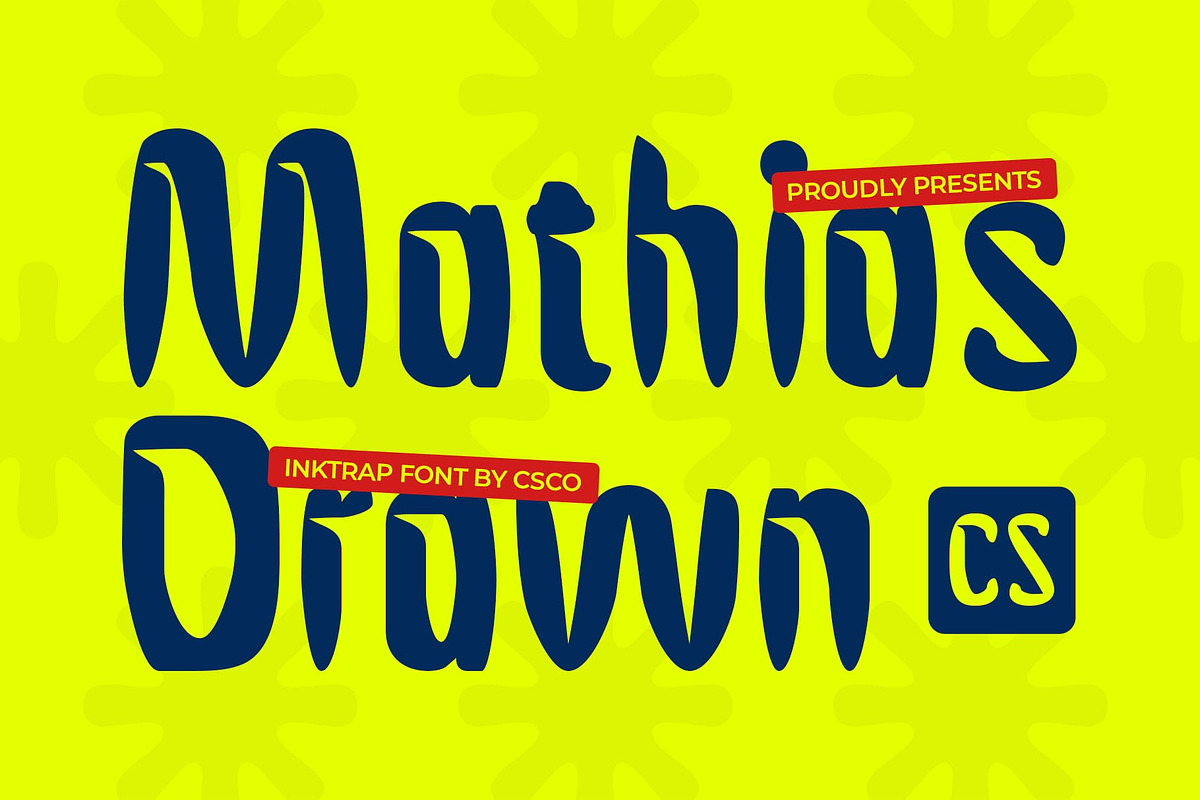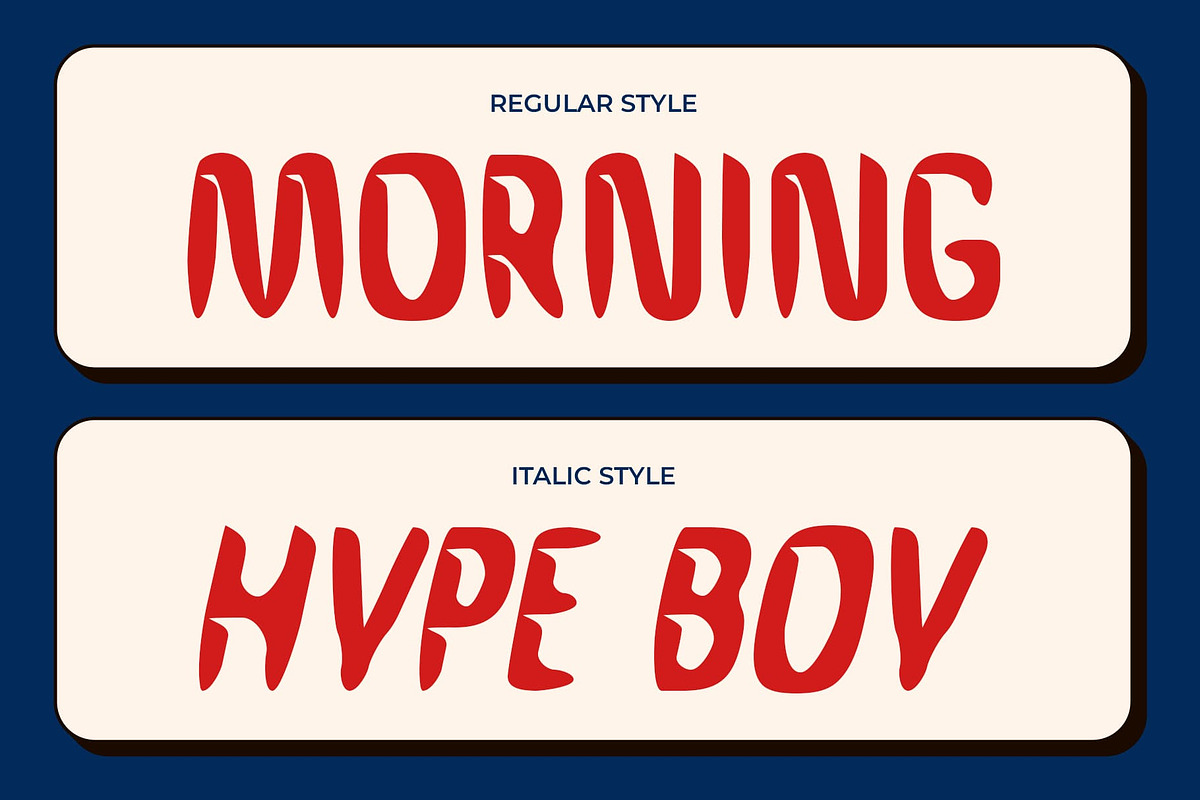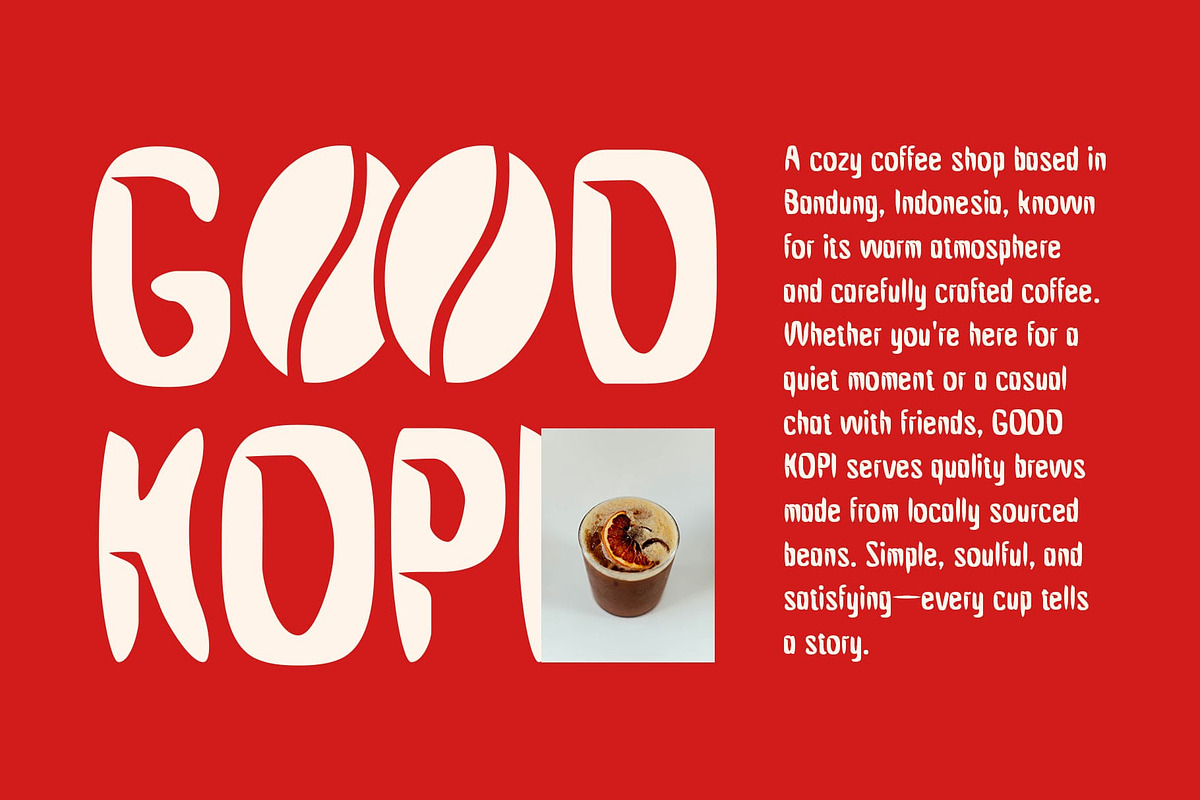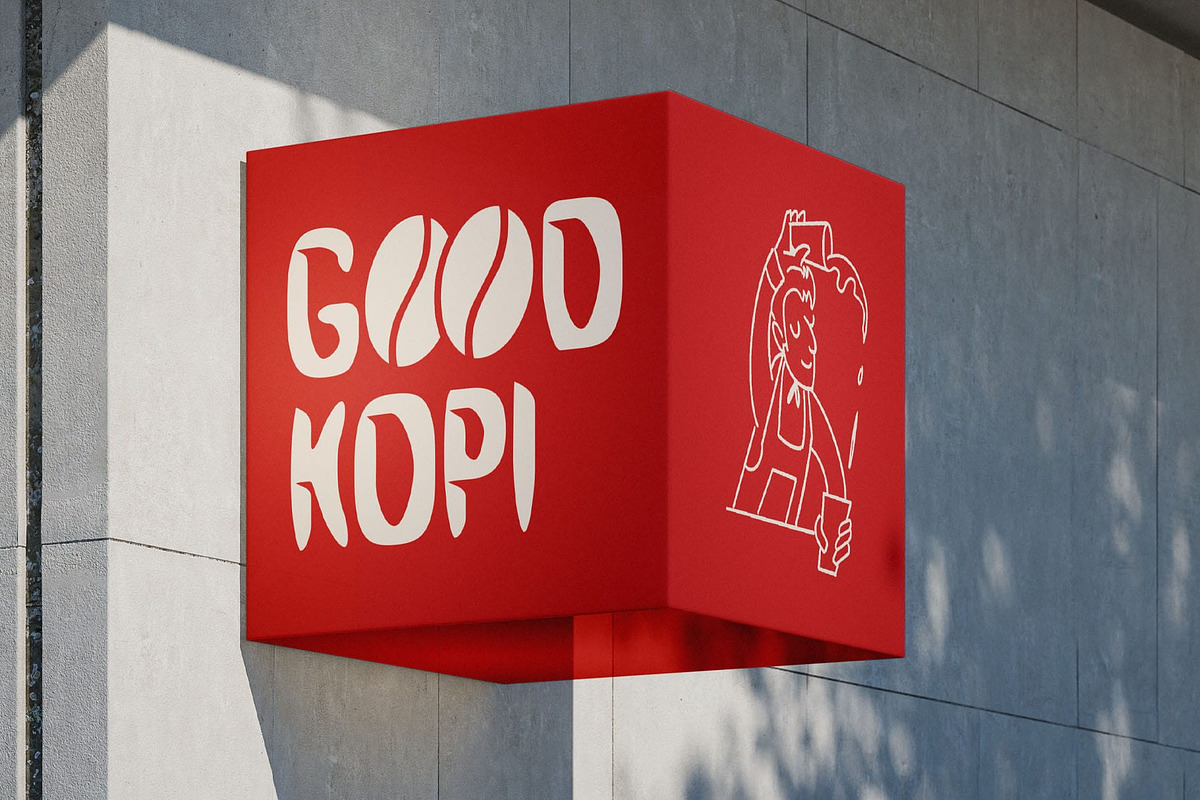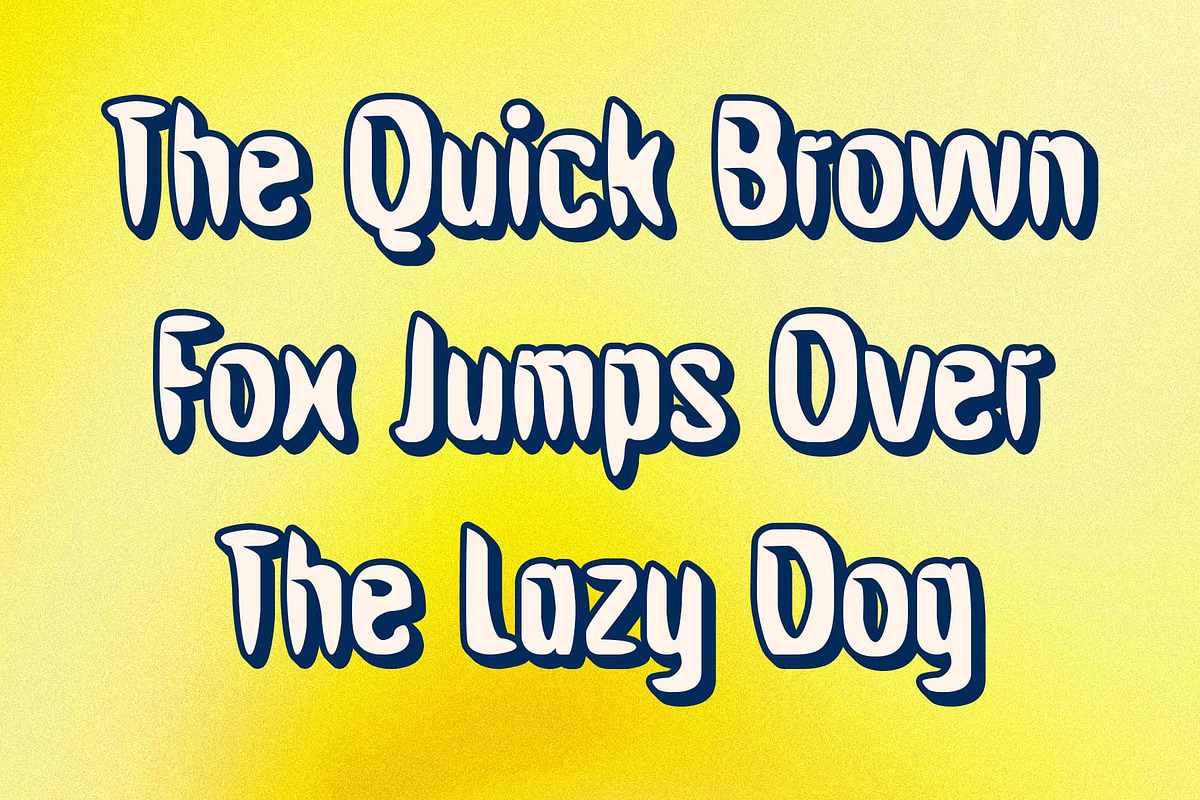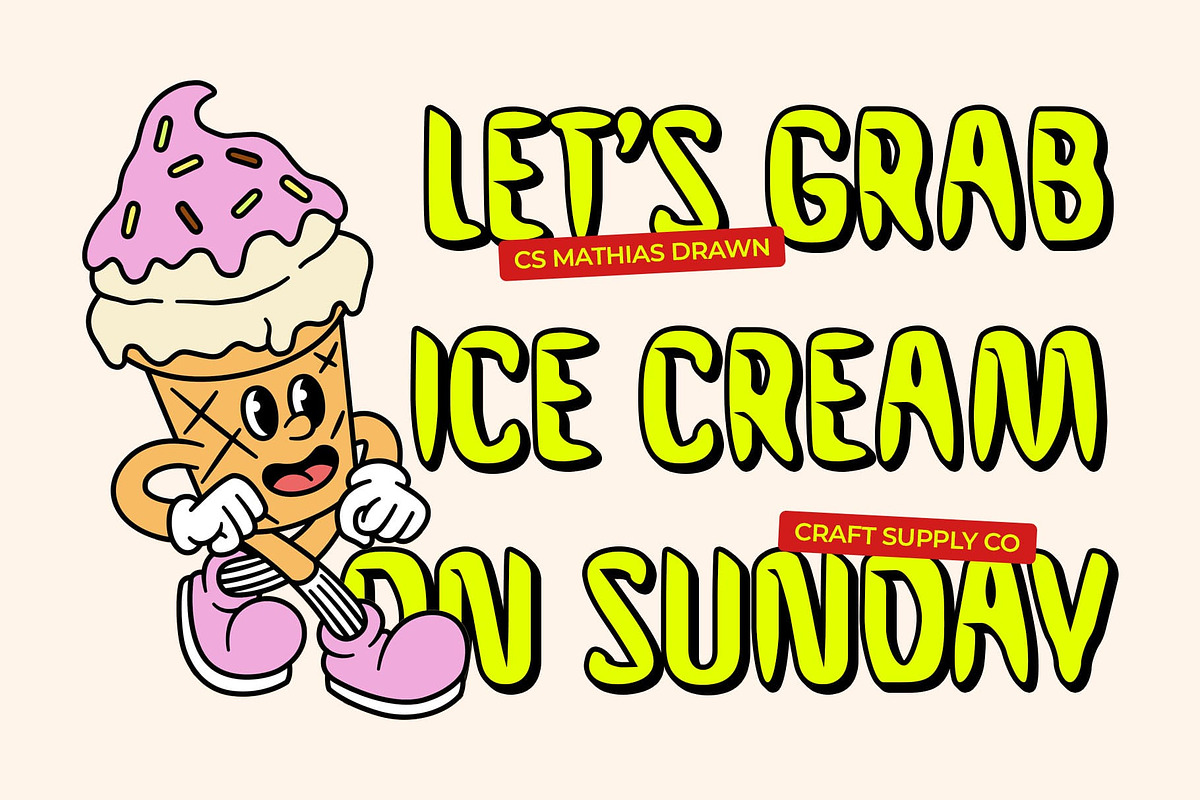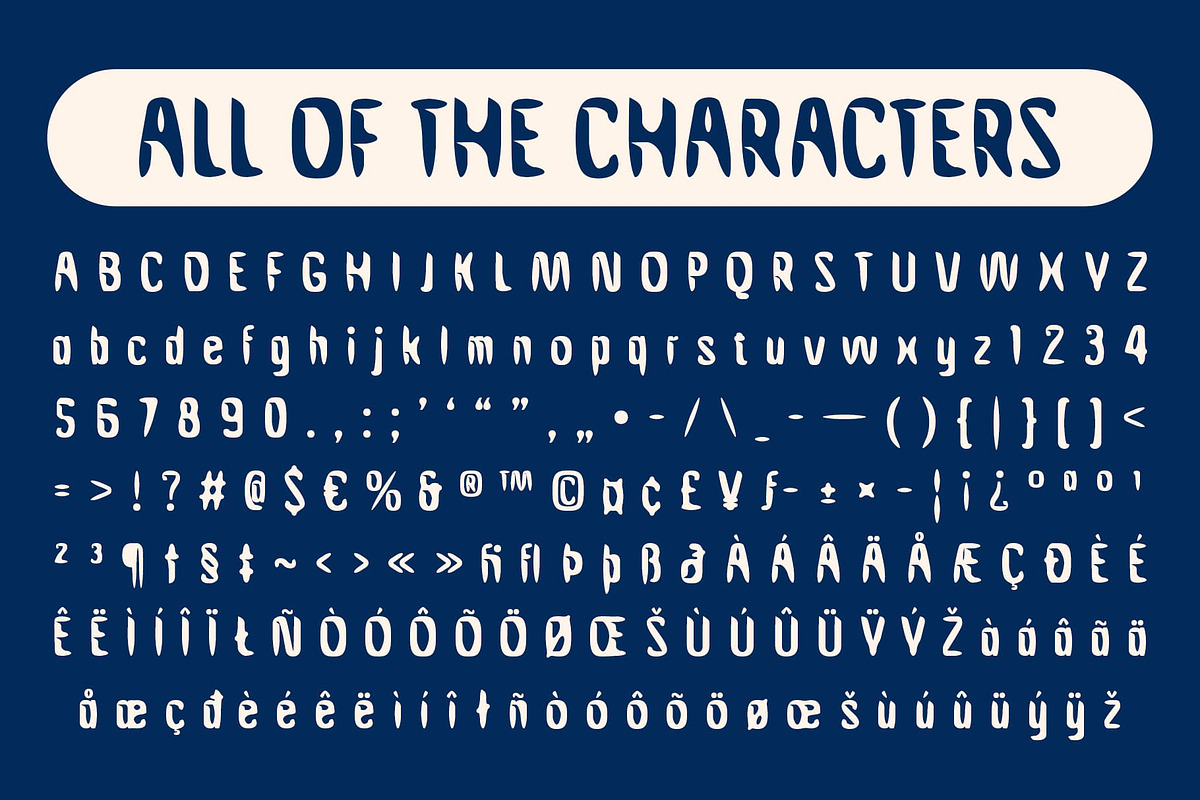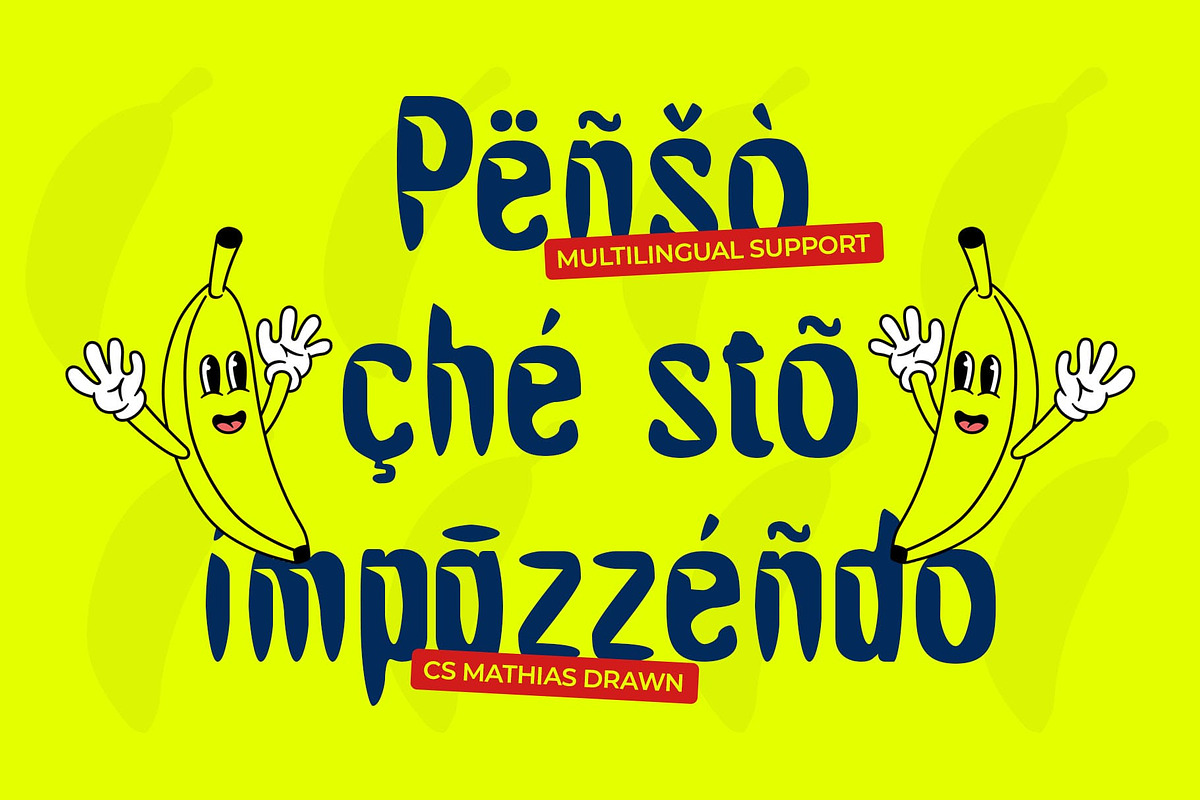
CS Mathias Drawn
CS Mathias Drawn – Contemporary Sans Serif with Inktrap Flair and Artistic Expression
Sharp Functionality Meets Organic Creativity CS Mathias Drawn is a modern sans serif font that combines technical precision with a hand-drawn spirit. Its defining feature lies in its distinctive inktrap details, which not only enhance legibility but also give the letterforms a bold, structured presence. These clean, angular forms are softened by a subtle drawn texture, creating a balance between clarity and artistic spontaneity.
Organic, Unique, and Full of Character The drawn effect adds a layer of expressive imperfection, making the font feel more human and dynamic—perfect for visual identities that seek authenticity and originality. Each character feels alive with creative energy, offering a tactile aesthetic rarely seen in geometric sans serif designs.
Ideal for Creative and Experimental Design Projects This artistic font is well-suited for branding, posters, editorial layouts, album covers, and digital graphics that aim to be bold and distinctive. It’s a go-to font for art-driven campaigns, fashion labels, or tech startups that want to present a modern yet soulful visual identity.
Where Geometry Meets Personality With its clean inktrap shapes and handcrafted flair, this eccentric font stands out as a versatile yet unconventional font choice. It brings together the efficiency of a modern sans serif with the expressive quality of drawn lines, resulting in a typeface that is both functional and visually compelling.